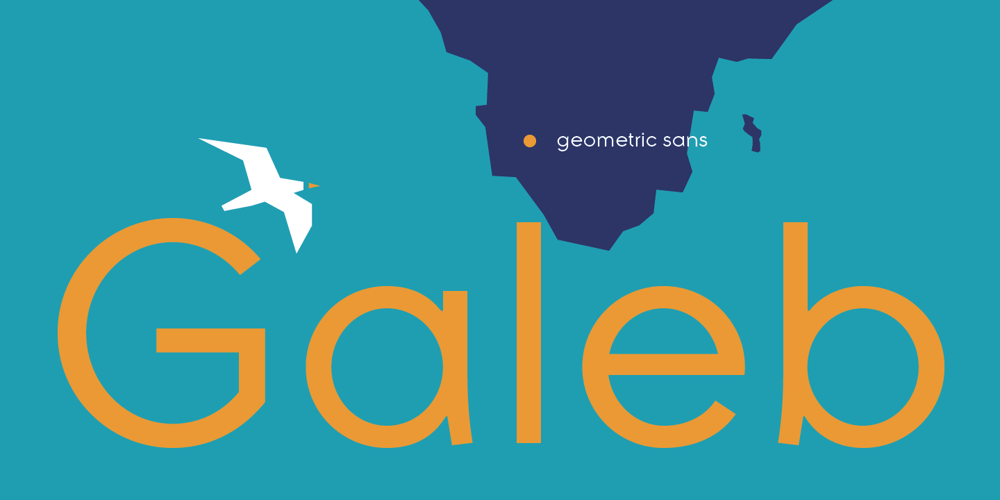
Galeb Font Family was designed by Slobodan Jelesijevic and published by Tour De Force. Galeb contains 4 styles and family package options. Galeb is simple geometric sans font family in 4 weights – Light, Regular, Bold and Black, ideal for corporate and editorial projects. With angled stem endings, Galeb gives enough impression to be used as display font as well.